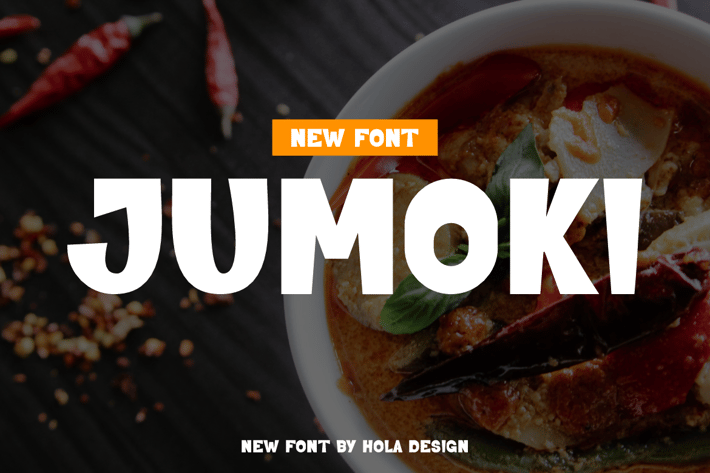
Jumoki Food and Logo Font
Jumoki Food and Logo Font Font is unique . Ready to use for your design like labeling, movie sceen, poster, movie title, gigs, album covers, logos, and much more.